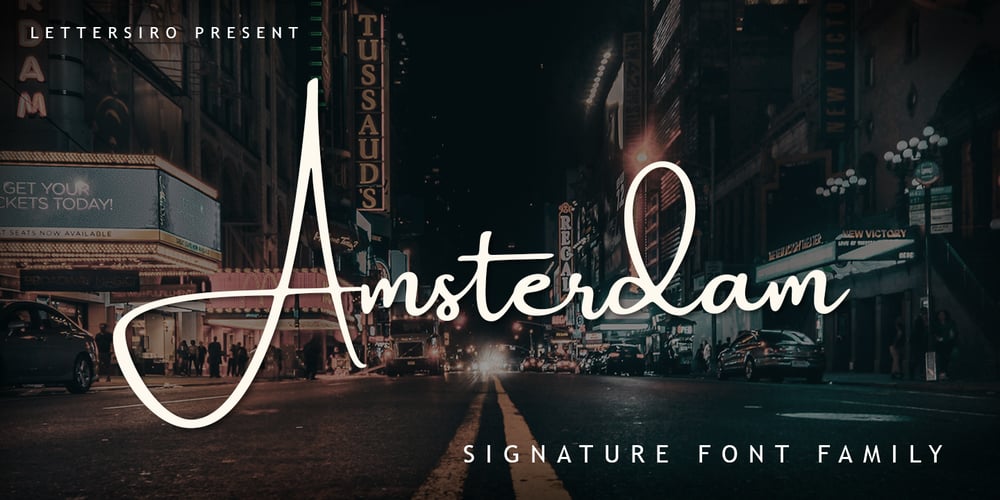
Amsterdam Signature Font Family was designed by Muhammad Sirojuddin and published by Lettersiro. Amsterdam Signature contains 4 styles and family package options. The Amsterdam font is a simple and classy font, comes with 4 Elegant Variations, opentype features such as stylistic alternates,initial and final form, and ligatures. We keep this font looks elegant, classy, readable, stylish, catchy and easy to use. The Amsterdam Font is the great choice for watermark on photography, signature or signature logo design, quotes, album cover, business card, and many other design project. From business cards to photo watermarks, The Amsterdam is here to elevate your work to the highest level